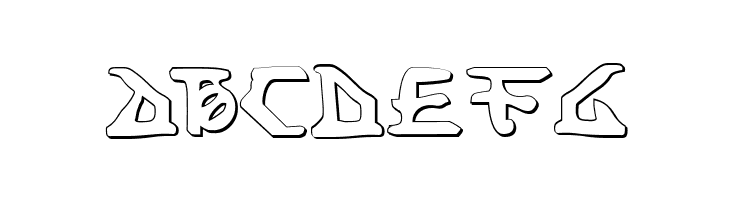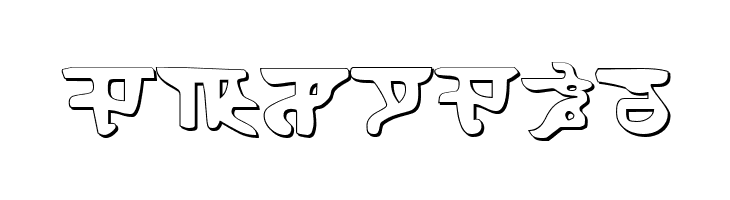
Decary Sans PERSONAL USE Regular Font
- Font: Decary Sans PERSONAL USE Regular
A futuristic, angular font with a shadow effect and bold geometric shapes.